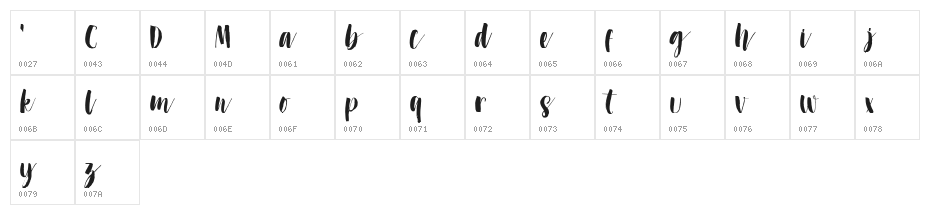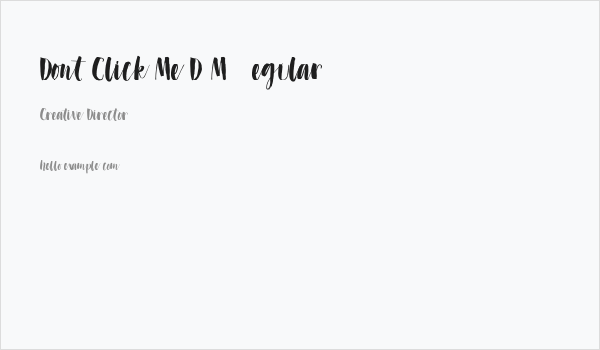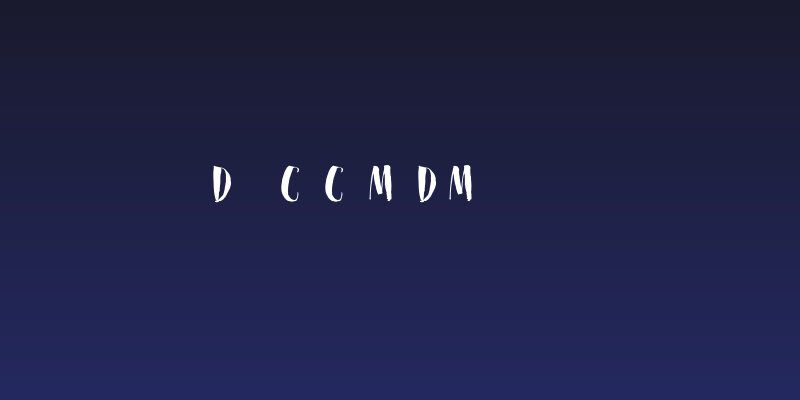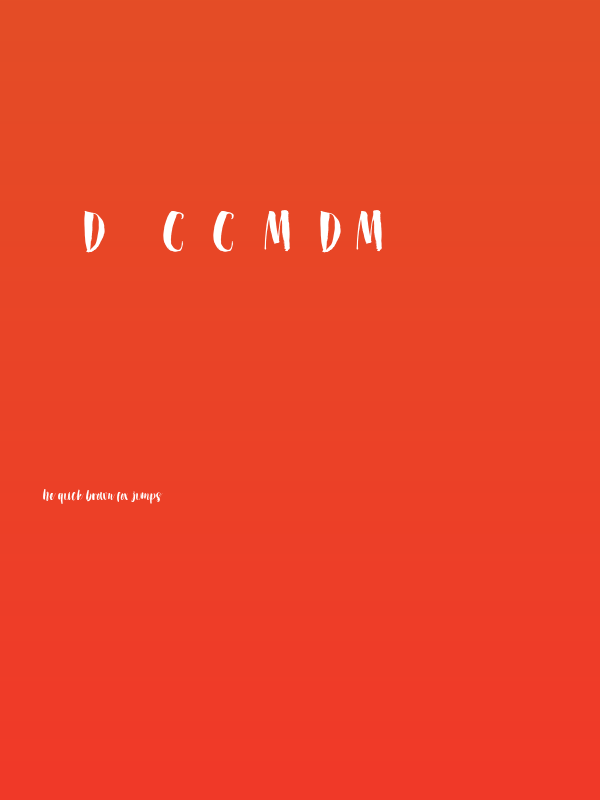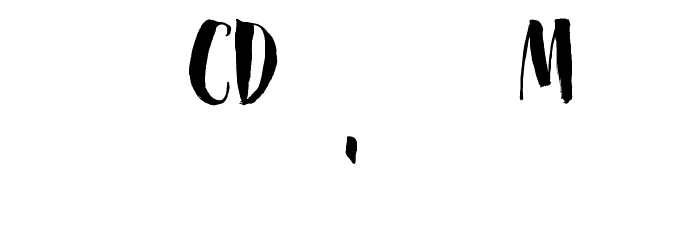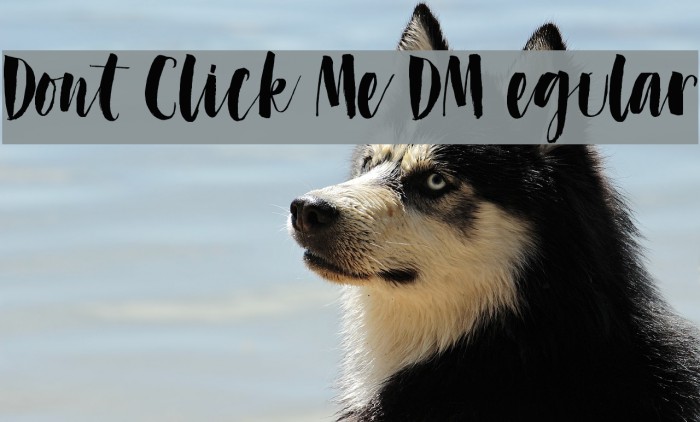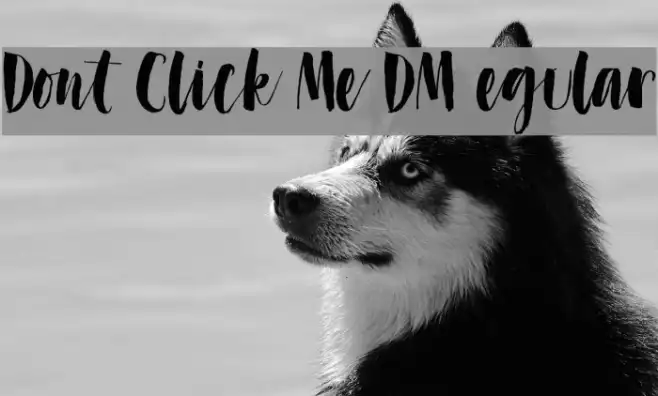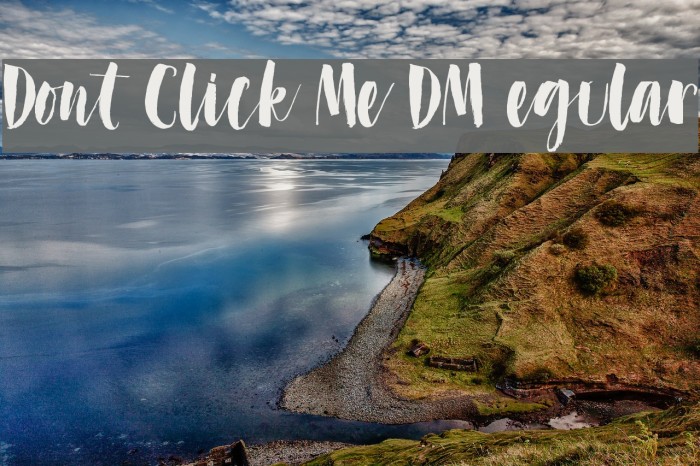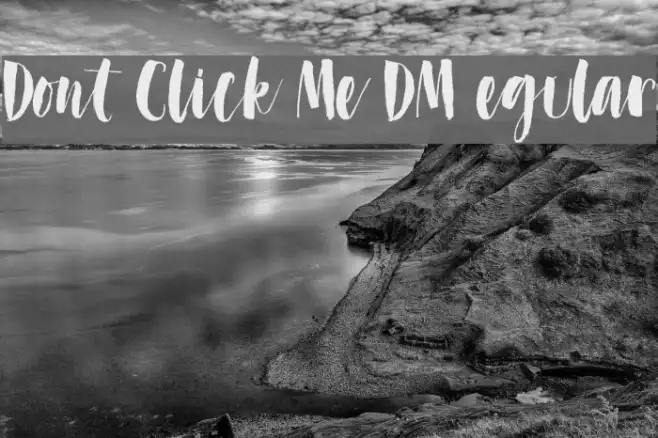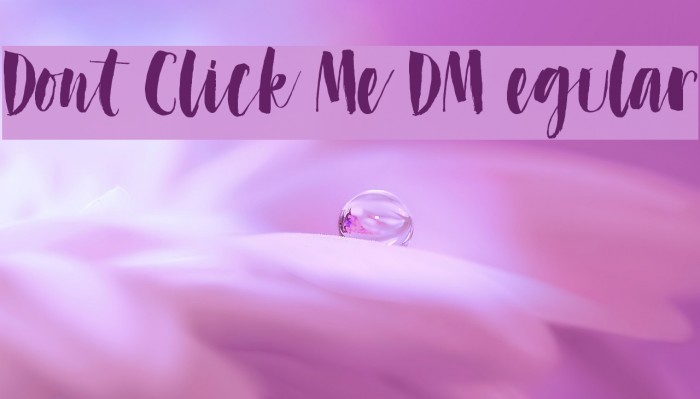
Dont Click Me DEMO Regular Font
Dont Click Me DEMO Regular Description
This font features a bold and expressive handwritten style, characterized by its fluid and dynamic strokes. The letters are crafted with a brush-like appearance, giving them a natural and artistic flair. The uppercase letters are bold and prominent, while the lowercase letters maintain a consistent flow with varying stroke widths, adding to the font's lively and energetic feel. The overall design is both elegant and playful, making it suitable for creative and informal applications.
| Proposed Projects | Ideal for greeting cards, invitations, branding, and social media graphics where a personal and artistic touch is desired. |